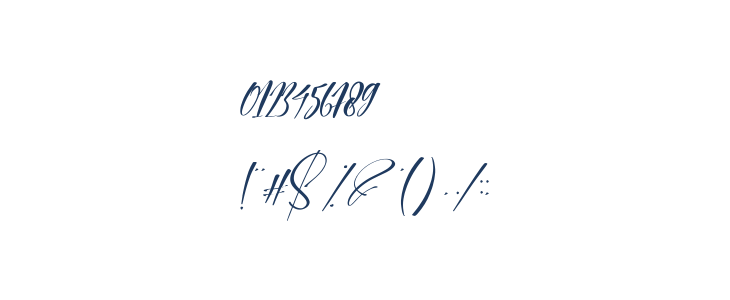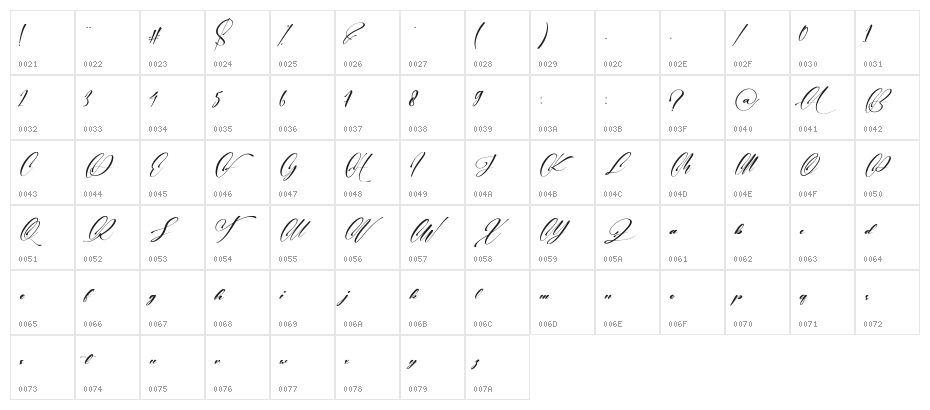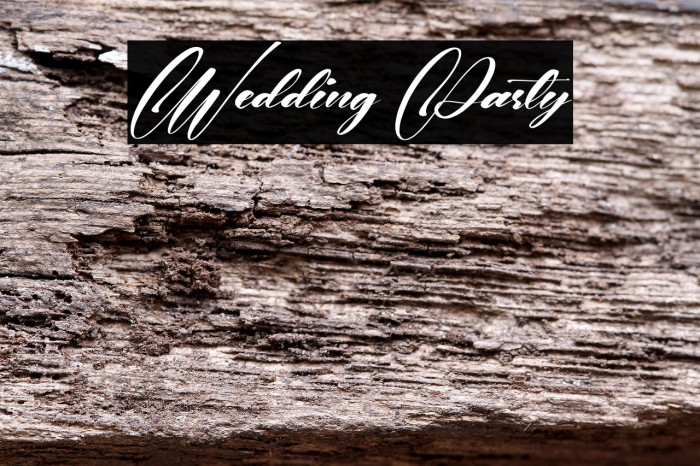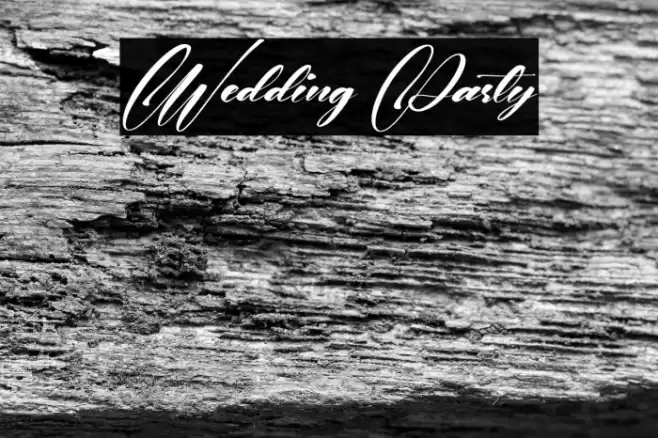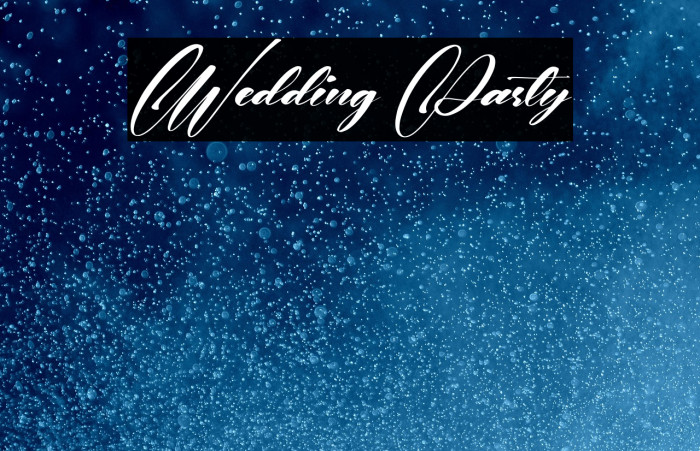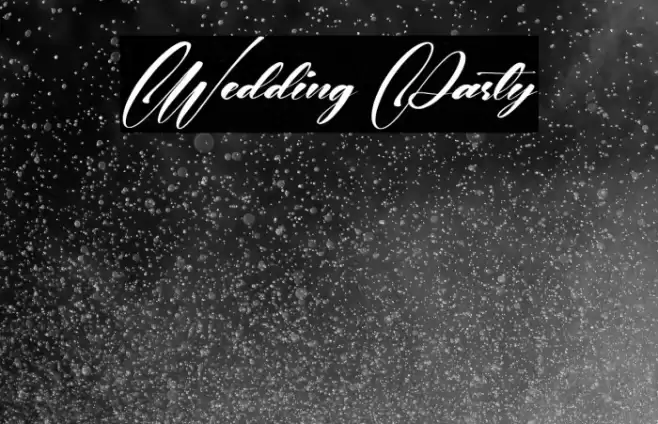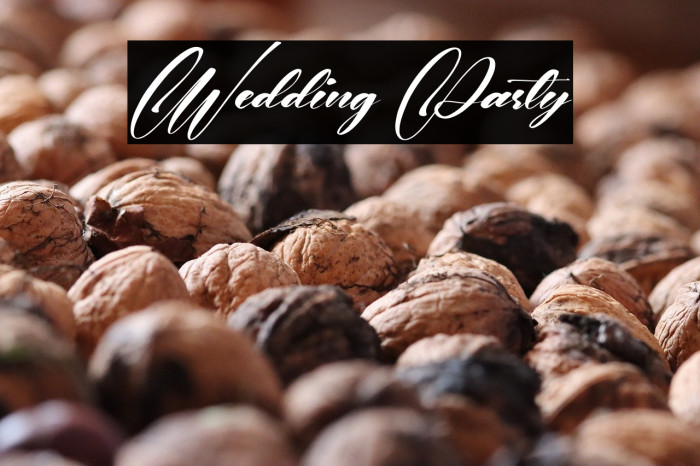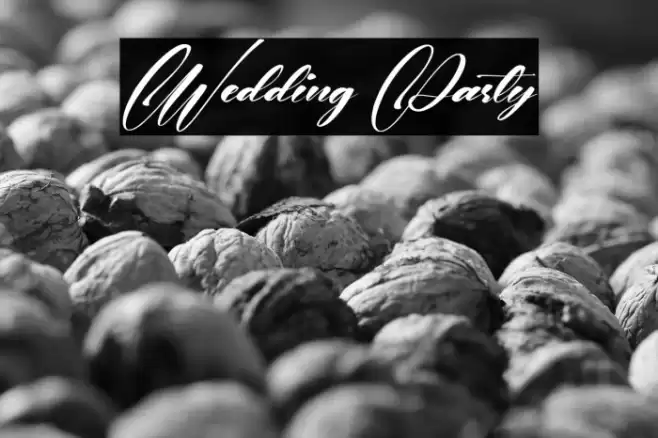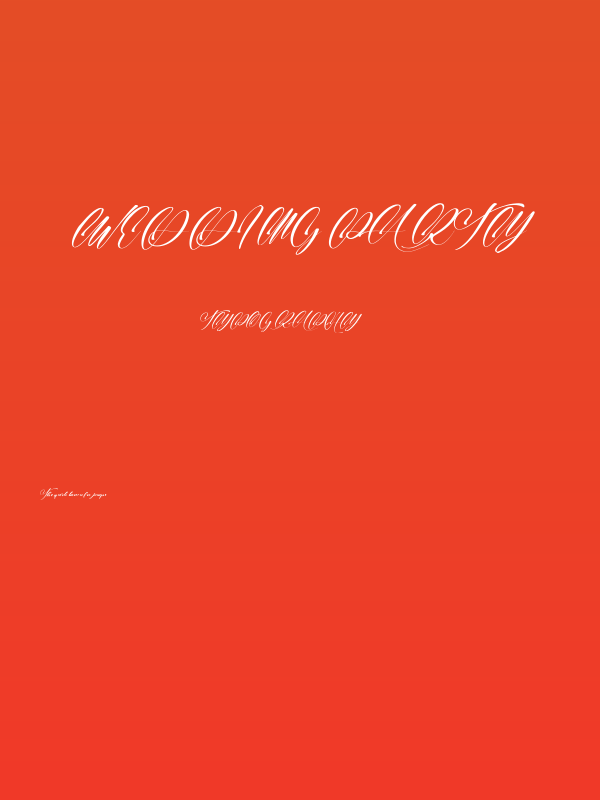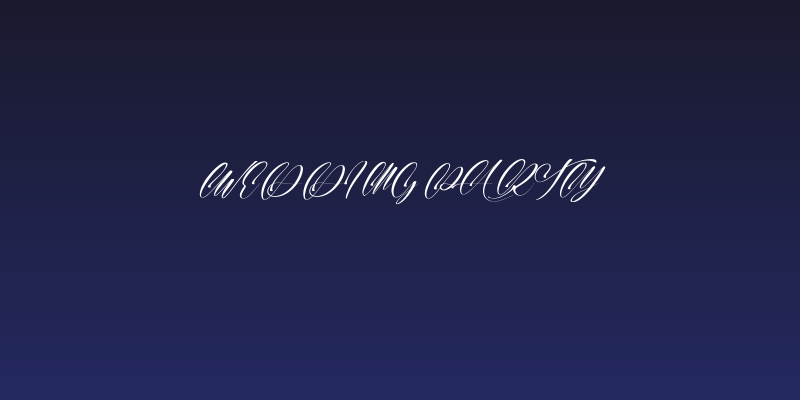
Wedding Party Font
Wedding Party Description
This elegant script font features a flowing, cursive style with intricate loops and flourishes. The uppercase letters are particularly ornate, with sweeping lines that extend beyond the baseline, creating a sense of movement and grace. The lowercase letters are more restrained but maintain the overall fluidity and elegance. The numbers and special characters are designed to complement the letters, with similar decorative elements. This font exudes sophistication and is perfect for formal occasions or projects that require a touch of class.
| Use Case | Headlines, Invitations, Branding |
| Proposed Projects | Ideal for wedding invitations, formal event programs, elegant branding, and luxury product packaging. |